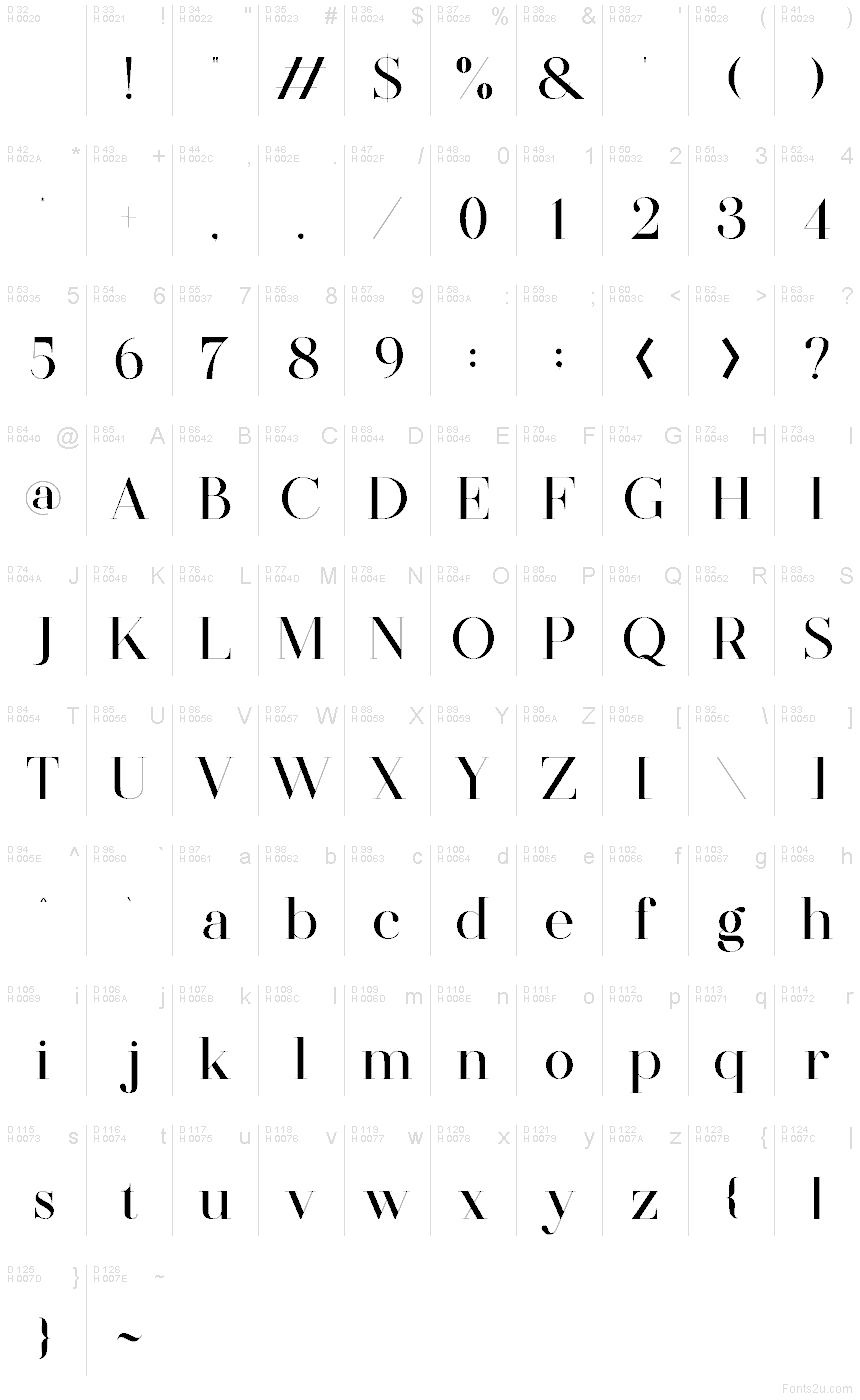
Bethia
Bethia font is a free classic and elegant serif typeface created by Slide Shoot Type. It presents a sophisticated set of characters with curved edges and consistent overall size. The perfectly balanced thickness makes this font readable whether used in printed or digital displays.
Use Bethia to design brand identities, business cards, resumes/Cvs, posters, headlines, websites, social media posts, and books/magazine covers/inner pages. Additionally it works for titles in Powerpoint presentations as well as invitation cards (wedding parties).